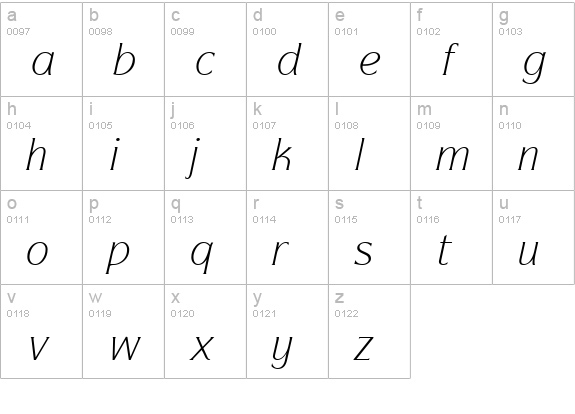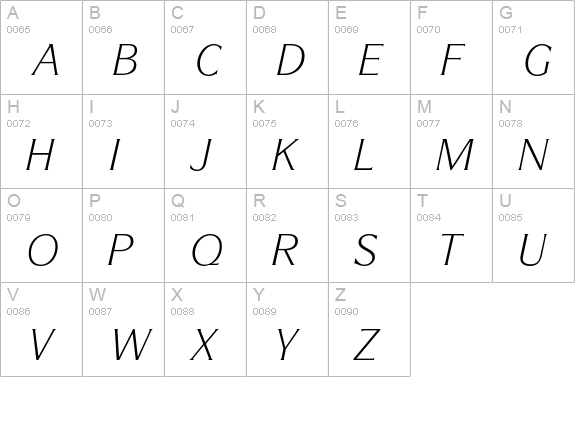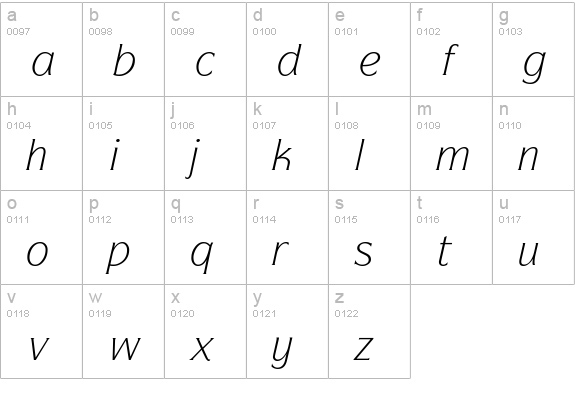
Symbol Italic Font Details
Symbol Italic is a distinctive, italic variant in the Symbol typeface family \xE2\x80\x94 well suited to design and typography projects.
Symbol Italic is a stunning and elegant font that exudes sophistication and style. Its sleek and slanted design adds a touch of modernity to any project, making it perfect for adding a unique flair to your designs. This font is perfect for creating logos, headers, invitations, and more. The italicized style of Symbol Italic gives it a sense of movement and fluidity that is sure to catch the eye of anyone who sees it. What's even better is that Symbol Italic is available for free download at FontsMarket.com. This means that you can easily access this beautiful font and incorporate it into your projects without any cost. Don't miss out on this opportunity to enhance your designs with the striking beauty of Symbol Italic. Download it today and let your creativity shine!